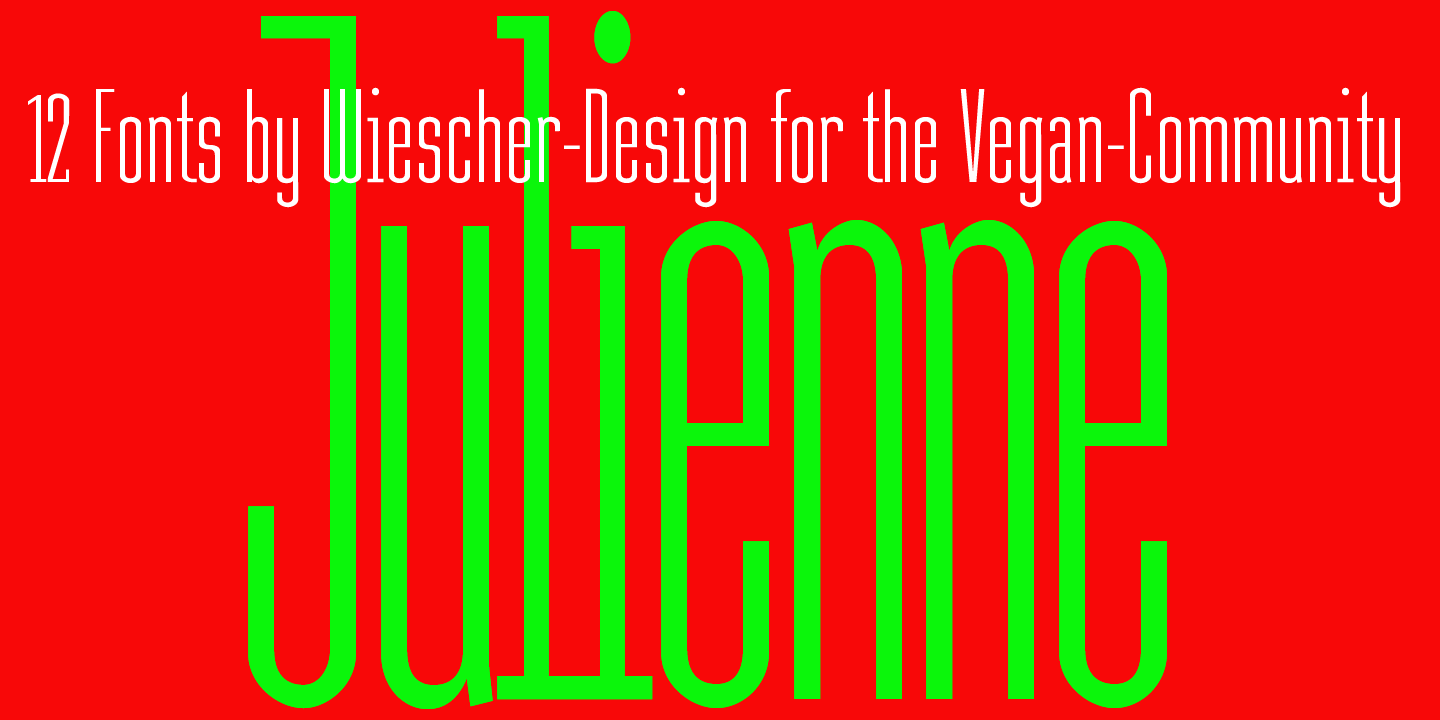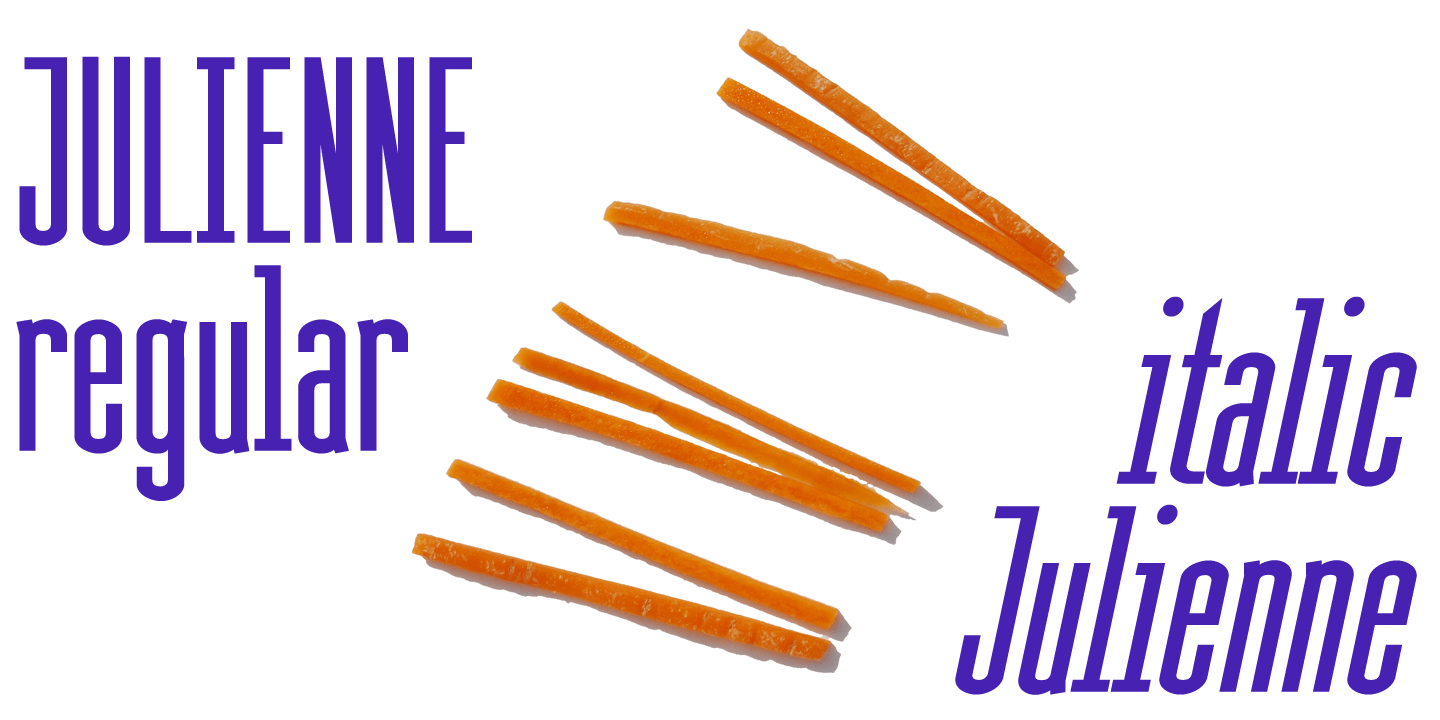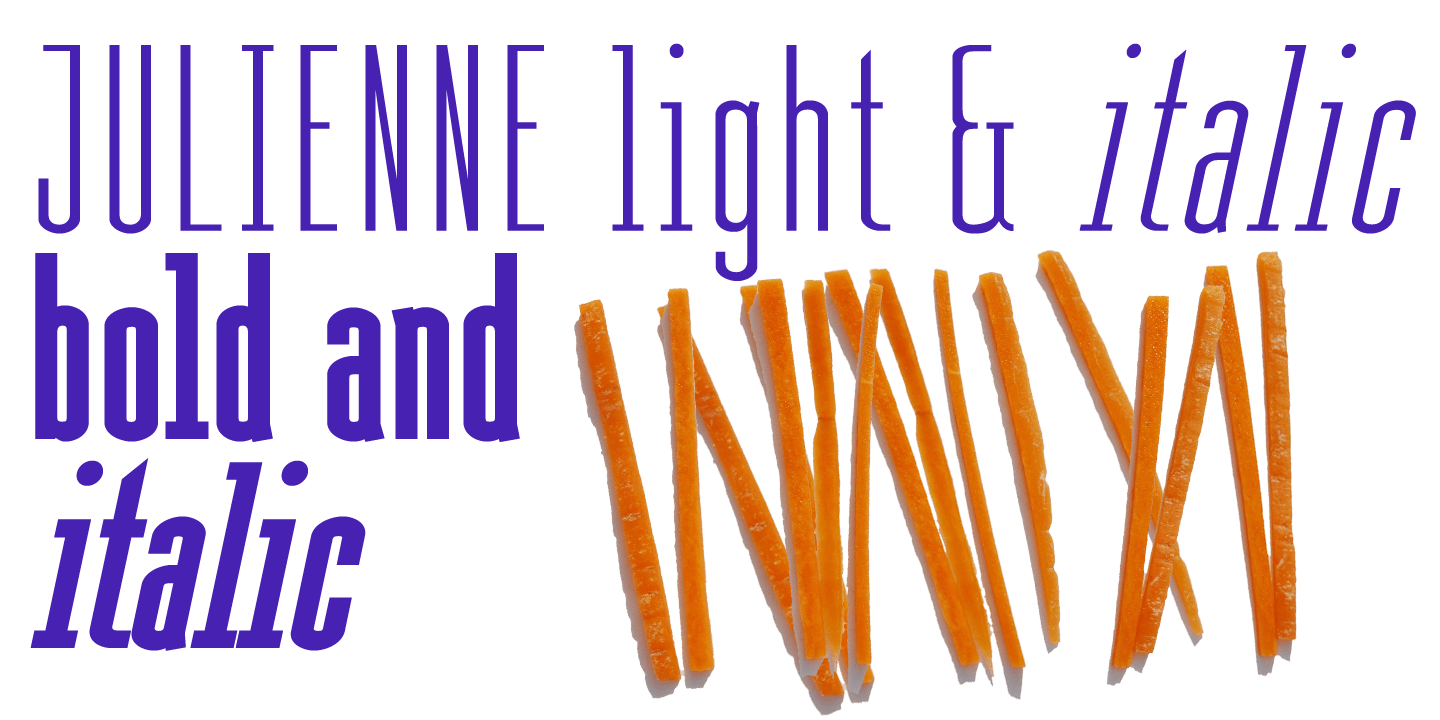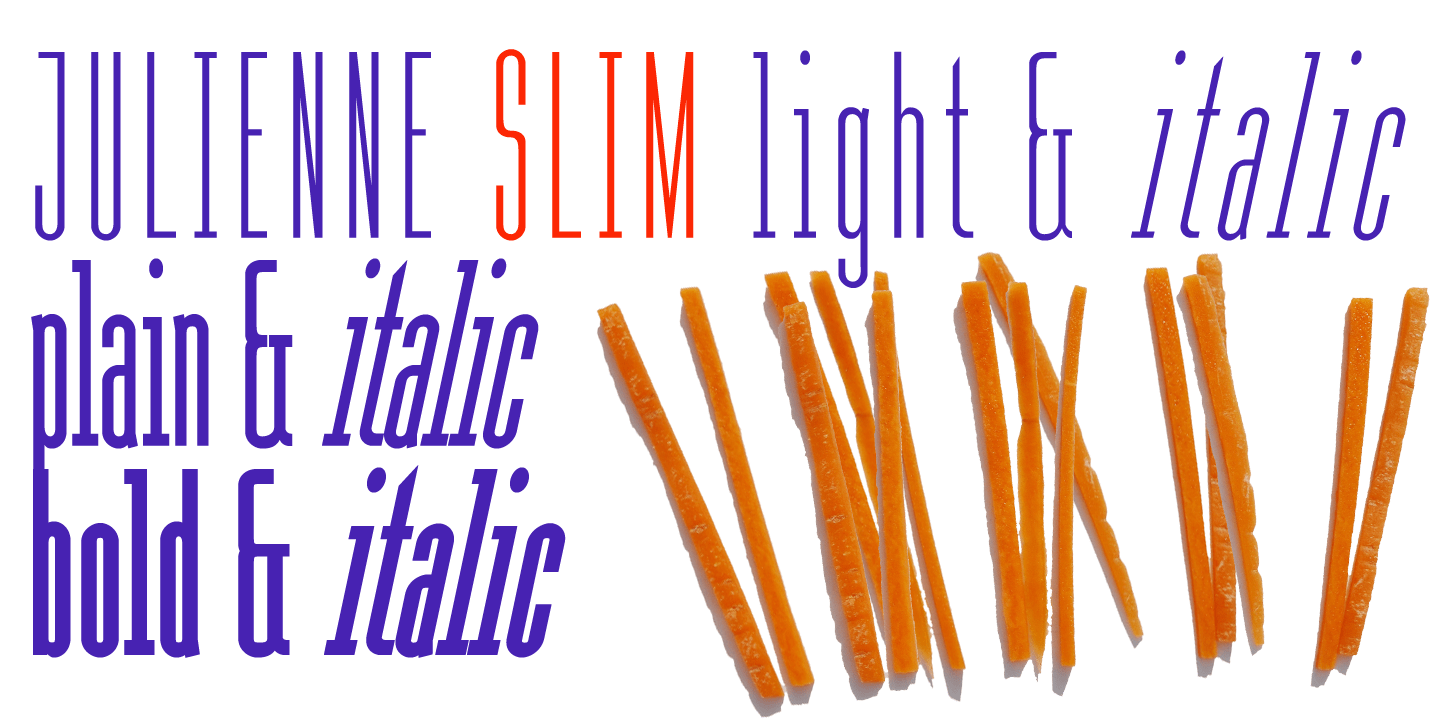
Julienne
Font Family by Wiescher Design
Cooks call thinly cut - like matchsticks - vegetables ?Julienne?. I found that was a fitting name for this very narrow typeface.
Julienne Slim is the extreme cut of the two. Personally I do not use narrow typefaces very often, but from time to time they come in handy if there is much text to be crammed into little space.
I could make a typeface that was even narrower, but I will not do it. This is as narrow as my typefaces get. Enjoy what I cut for you, Gert Wiescher.